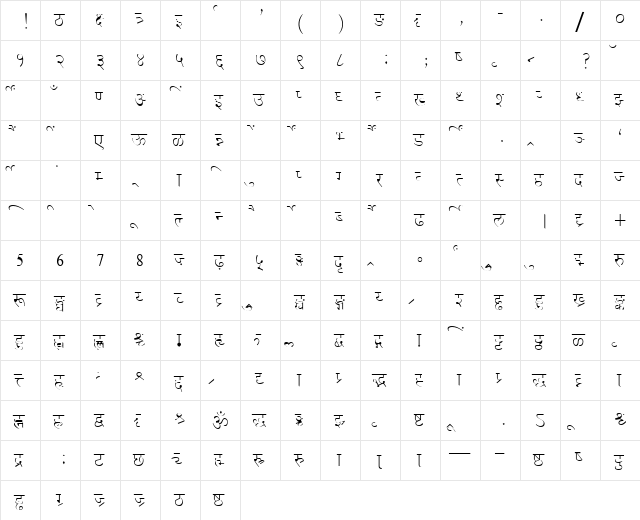
AkrutiDevNatrajLight Normal Font Preview
AkrutiDevNatrajLight Normal
Design Context for AkrutiDevNatrajLight Typeface
AkrutiDevNatrajLight is a composed and adaptable typeface that performs quietly and consistently across a wide range of design contexts. The delicate stroke weight brings airiness and refinement to layouts.